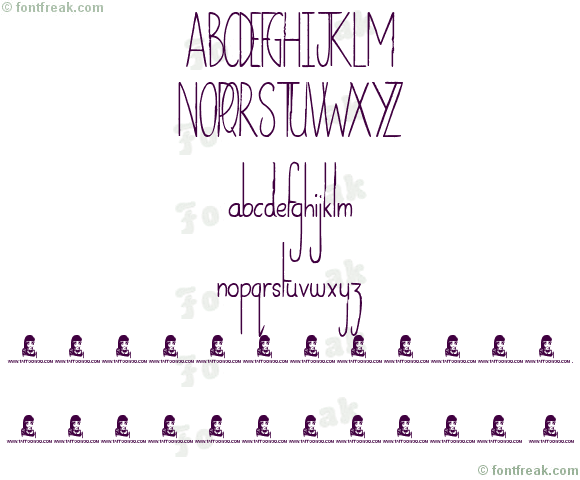
Today is the Oldest and Youngest You Will Ever Be
Today is the Oldest and Youngest You Will Ever Be by Jonathan S. Harris is a unique display font that beautifully merges whimsy with sophistication. This font features a playful handwritten style, characterized by its irregular strokes and casual flair. The varying stroke weights create a sense of movement, while the moderate contrast between thick and thin lines adds depth and interest. The letters have a loose spacing that enhances readability without compromising the font's artistic charm, making it an excellent choice for a variety of creative projects.
This font shines in numerous applications, particularly in settings that call for a personal touch. It is perfect for wedding invitations, where its informal elegance can convey warmth and intimacy. Additionally, it works well for movie posters, capturing attention with its distinctive character. Restaurant menus can benefit from its inviting aesthetic, enticing diners with a sense of fun and creativity. Content creators may find Today is the Oldest and Youngest You Will Ever Be ideal for blog headers or social media graphics, adding a unique voice to their visual storytelling.
The target audience for this font includes graphic designers, small business owners, and content creators who seek to infuse their work with personality and charm. Whether crafting promotional materials or decorative prints, this font allows users to express their brand's identity in an engaging manner.